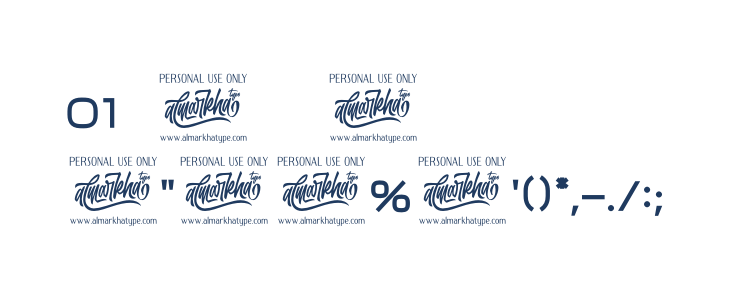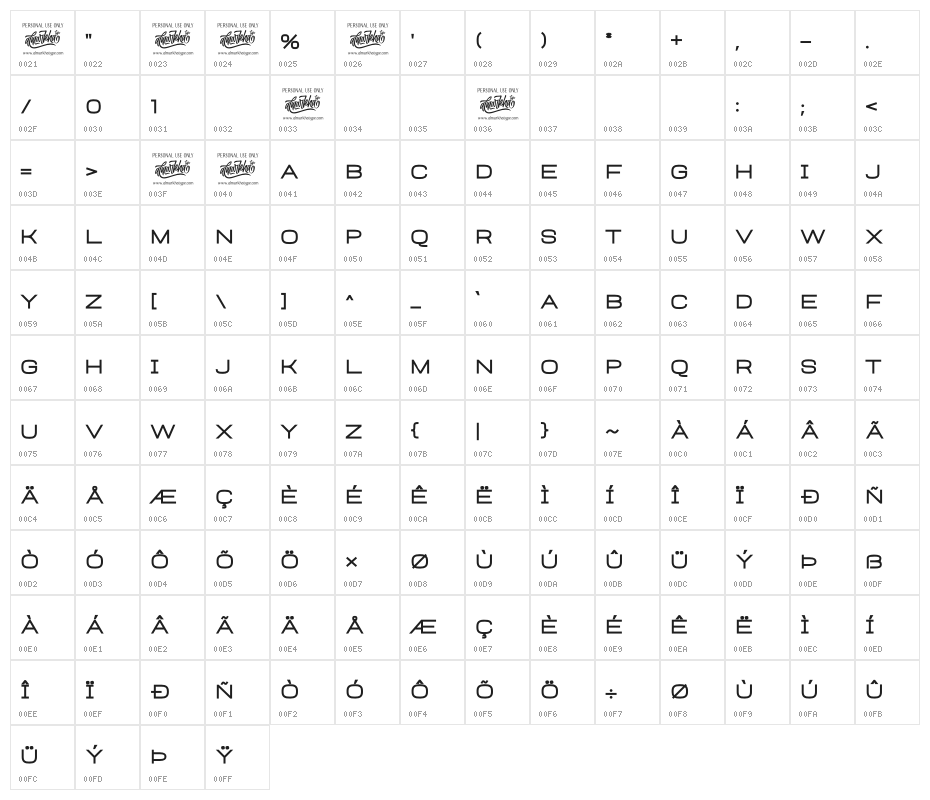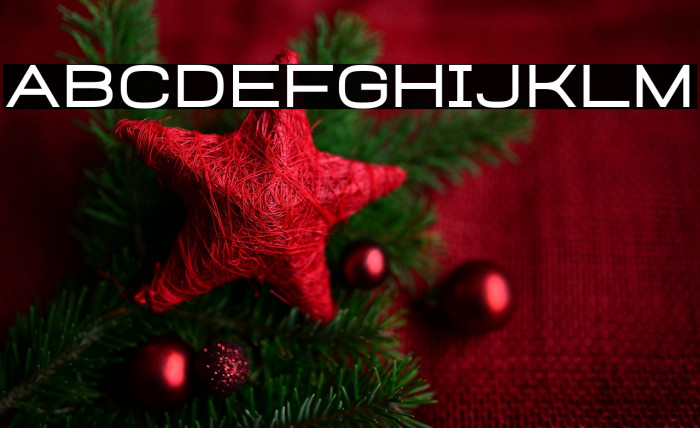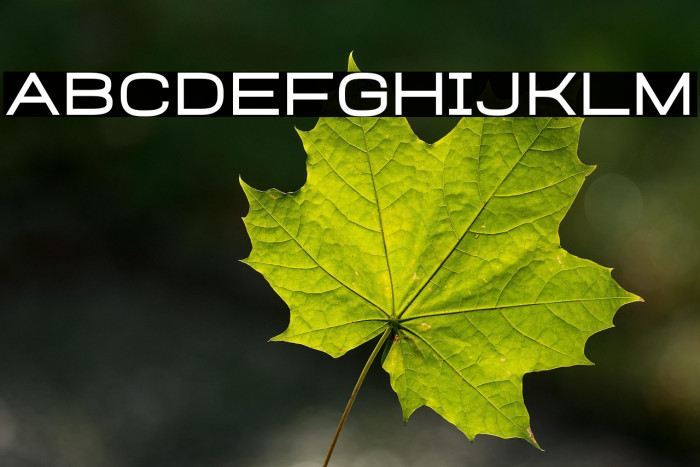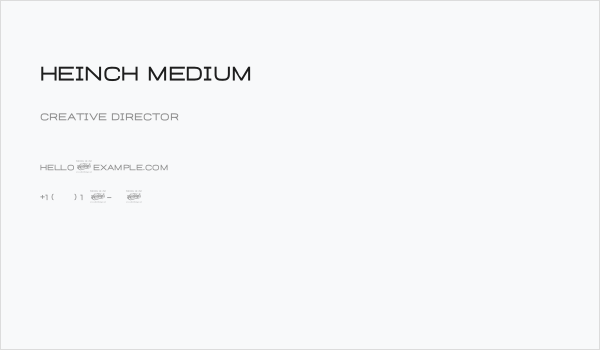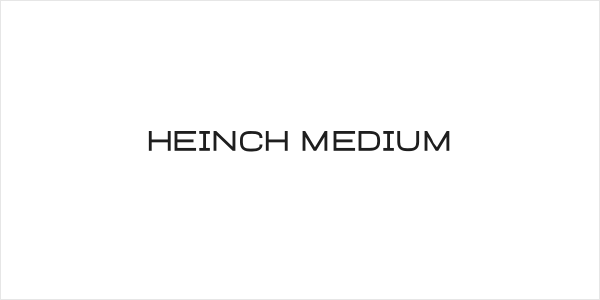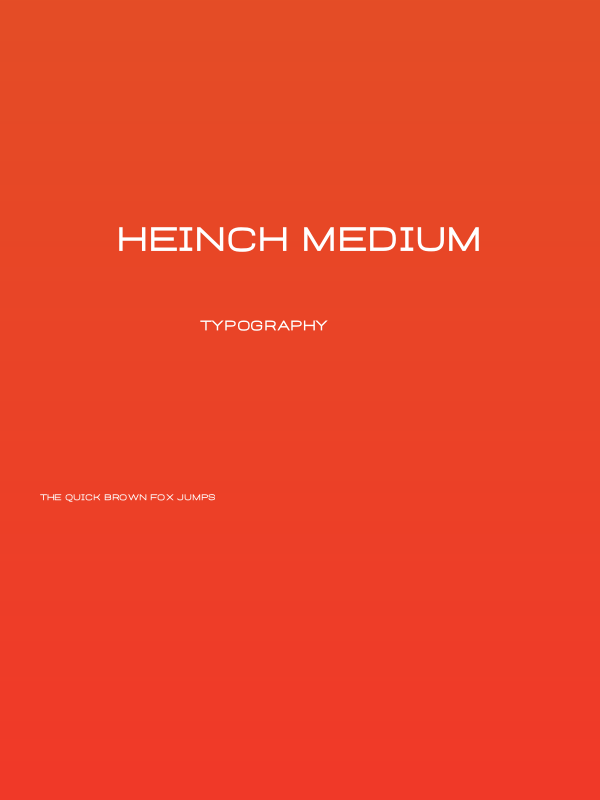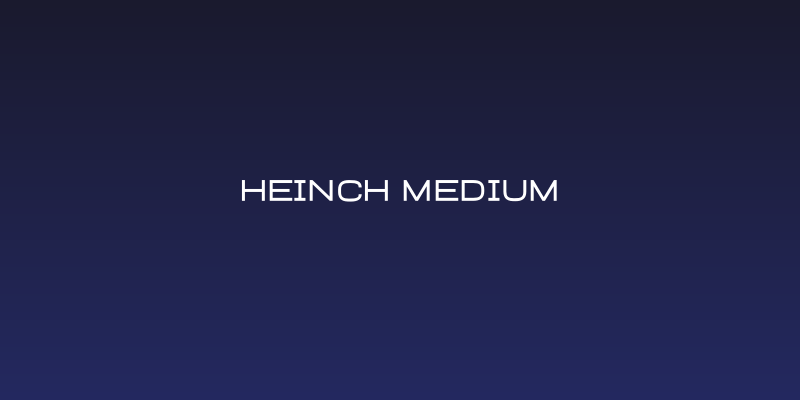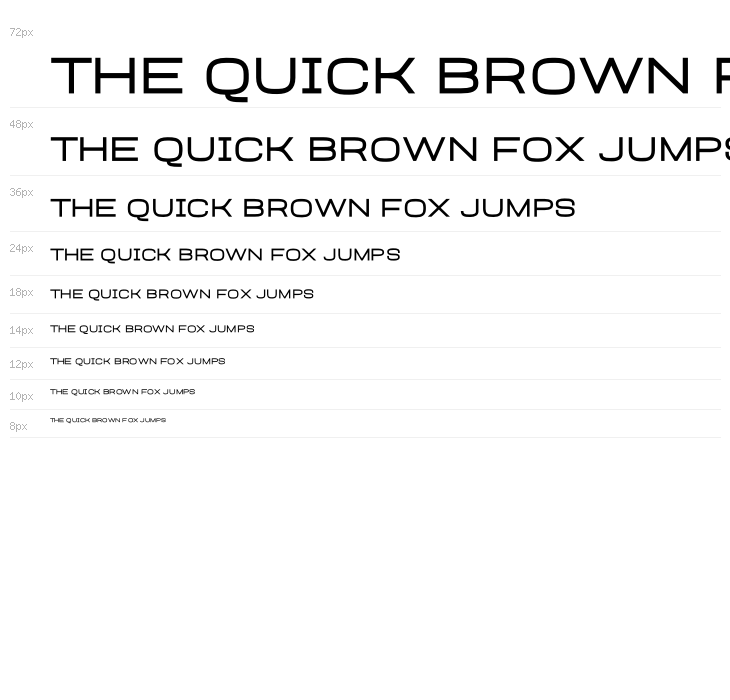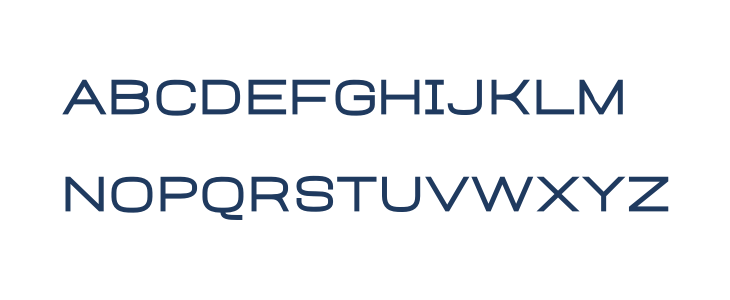
Heinch Medium Font
Heinch Medium Description
This font features a clean and modern sans-serif design with a geometric structure. The characters are uniform in width, providing a balanced and orderly appearance. The uppercase and lowercase letters maintain a consistent style, with slightly rounded edges that soften the overall look. The numerals and special characters are designed to match the letterforms, ensuring a cohesive visual experience. The font's simplicity and clarity make it highly legible, suitable for various applications where readability is essential.